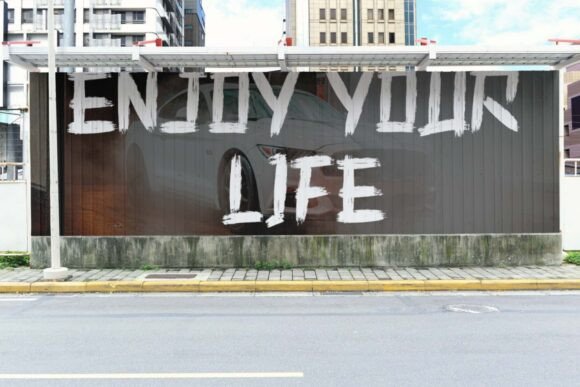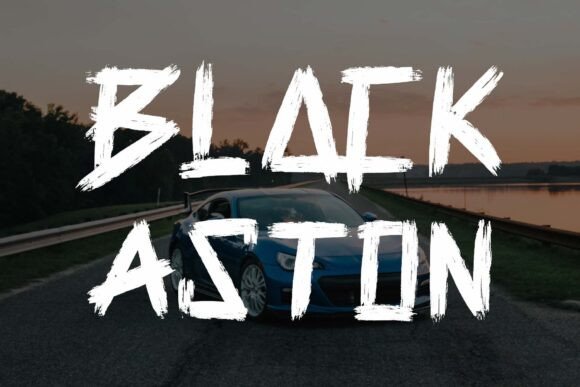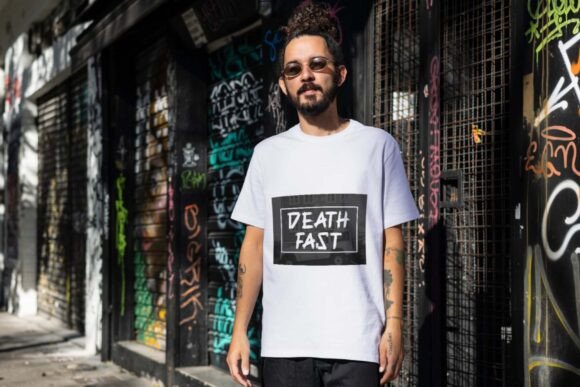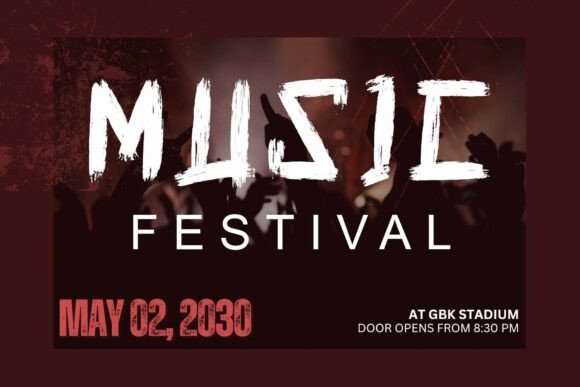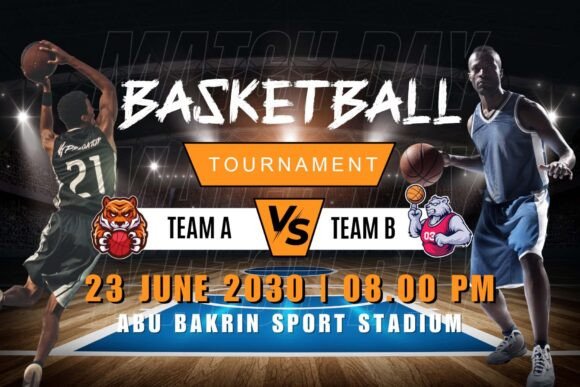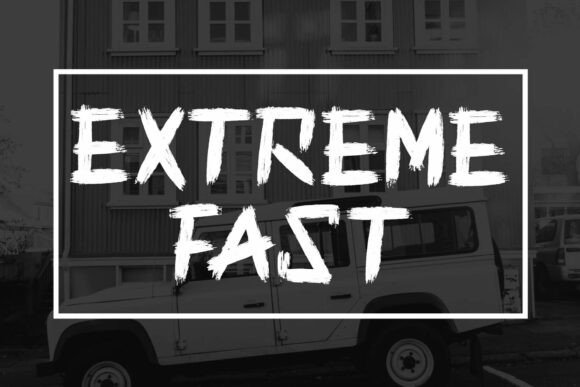
Unleash Your Creativity with Battle Race Font: A Modern Brush Font
Are you a designer, crafty enthusiast, or simply someone who loves to create stunning visual content? Look no further! Introducing the Battle Race Font, a unique, elegant, and modern brush font that is sure to take your designs to the next level. In this article, we’ll dive into the features, benefits, and uses of this incredible font, and explore how it can elevate your creative projects.
What is Battle Race Font?
Battle Race Font is a modern brush font that exudes elegance and sophistication. Its unique design makes it perfect for a wide range of creative projects, from stickers and posters to branding and movie titles. This font is carefully crafted to provide a distinctive look that sets it apart from other fonts.
Key Features of Battle Race Font
- Uppercase and Lowercase Letters: The font includes both uppercase and lowercase letters, providing you with flexibility and versatility in your designs.
- Numerals and Punctuation: The font also includes numerals and punctuation marks, making it a comprehensive font for all your design needs.
- Ligatures: The font features ligatures, which provide a natural and fluid look to your text.
- Multilingual Support: Battle Race Font supports multiple languages, making it a great choice for designers who work with international clients or create content for a global audience.
Benefits of Using Battle Race Font
So, why choose Battle Race Font for your creative projects? Here are just a few benefits of using this amazing font:
- Unique and Eye-Catching: The font’s unique design makes it stand out from other fonts, ensuring your designs grab attention and leave a lasting impression.
- Elegant and Sophisticated: The font’s elegant and sophisticated look makes it perfect for high-end branding, movie titles, and other premium designs.
- Versatile: The font’s versatility makes it suitable for a wide range of creative projects, from stickers and posters to logos and business branding.
Use Cases for Battle Race Font
So, what can you create with Battle Race Font? Here are some inspiring use cases to get you started:
- Stickers and Posters: Create eye-catching stickers and posters that grab attention and convey your message effectively.
- Branding and Logos: Use Battle Race Font to create stunning logos and branding materials that reflect your business’s personality and values.
- Movie Titles and Book Covers: Add a touch of elegance and sophistication to your movie titles and book covers with this beautiful font.
- Banners and Signs: Create visually appealing banners and signs that make a lasting impression on your audience.
Tips for Using Battle Race Font
To get the most out of Battle Race Font, here are some tips to keep in mind:
- Experiment with Colors: Try out different colors and color combinations to find the perfect match for your design.
- Play with Sizes: Experiment with different font sizes to create visual hierarchy and emphasis in your design.
- Pair with Other Fonts: Try pairing Battle Race Font with other fonts to create a unique and interesting contrast.
In conclusion, Battle Race Font is an incredible modern brush font that offers a unique blend of elegance, sophistication, and versatility. With its comprehensive feature set, including uppercase and lowercase letters, numerals, punctuation, ligatures, and multilingual support, this font is perfect for a wide range of creative projects. Whether you’re a designer, crafty enthusiast, or simply someone who loves to create stunning visual content, Battle Race Font is sure to become a valuable addition to your font collection.